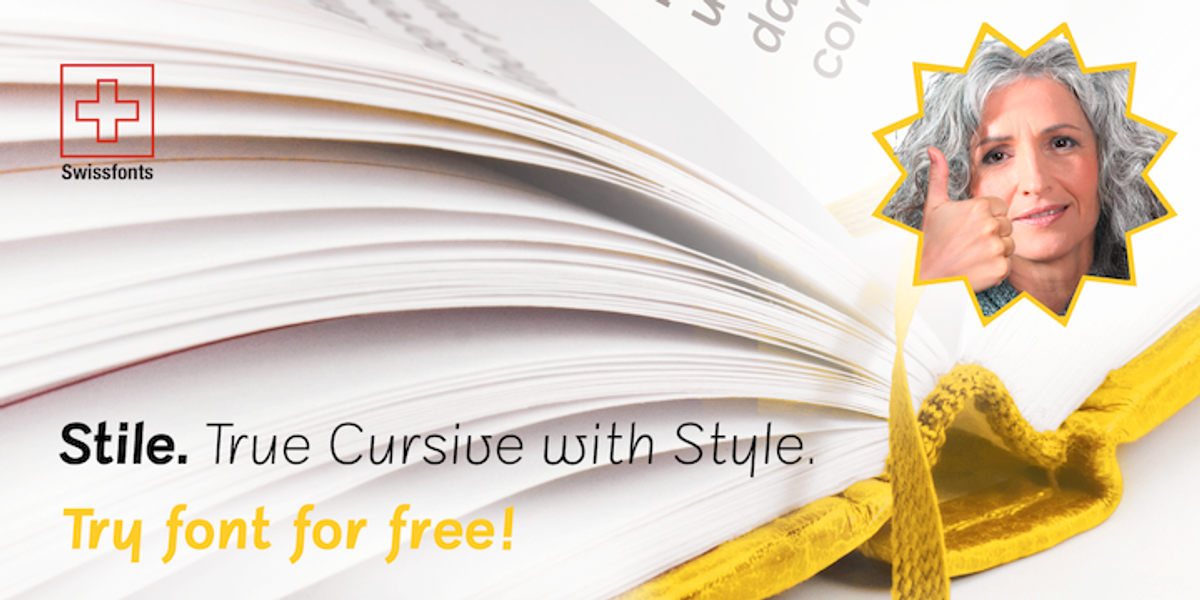
Stile
Stile is a contemporary sans serif font that distinguishes itself with its true cursive style. While maintaining the clean lines of a sans serif, it incorporates a moderate inclination reminiscent of handwriting. This unique blend makes Stile highly readable and suitable for both body text and display purposes. Its versatility is further enhanced by the inclusion of eight weights, ranging from ultrathin to black, ensuring adaptability to diverse design needs.